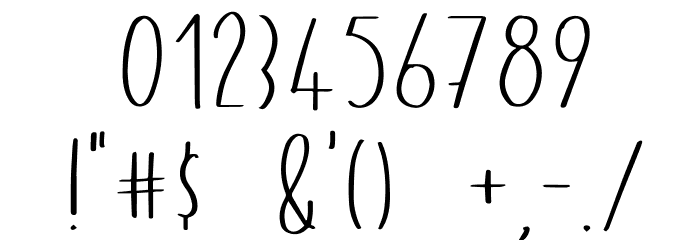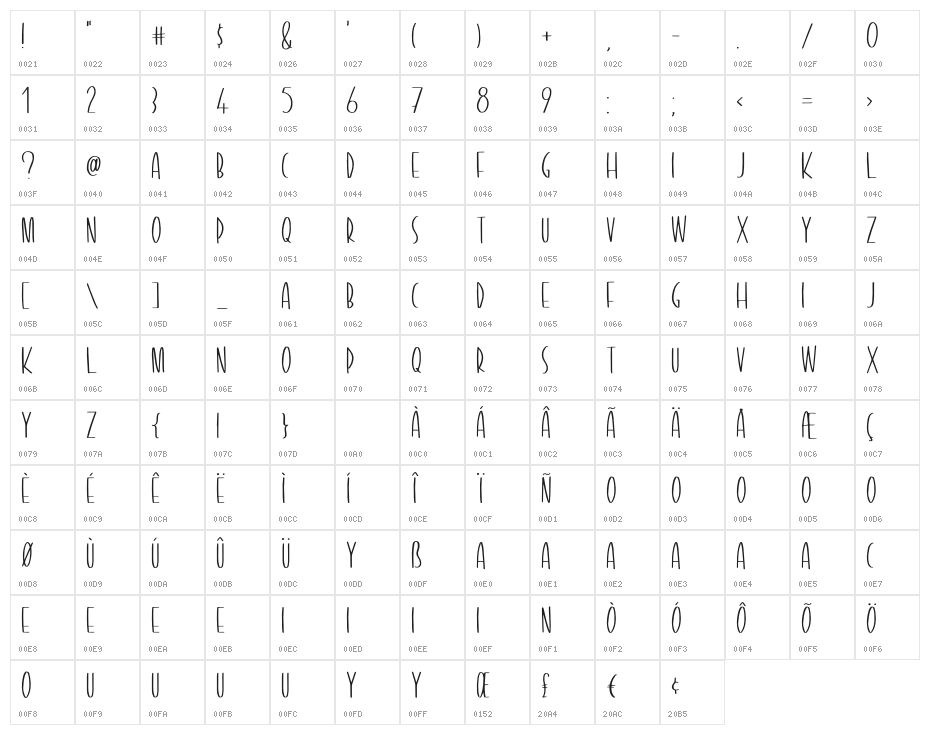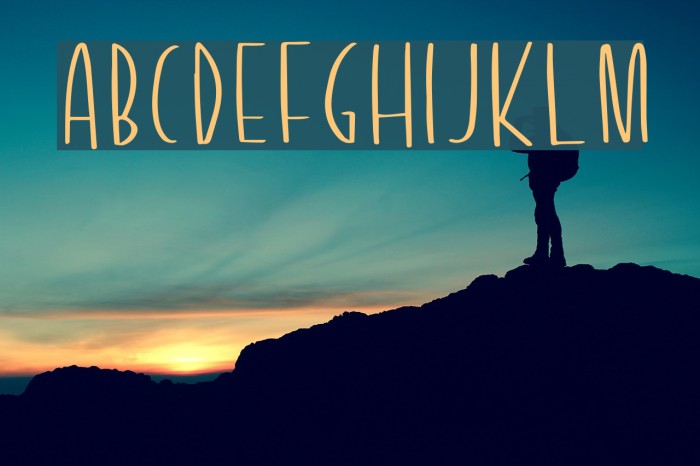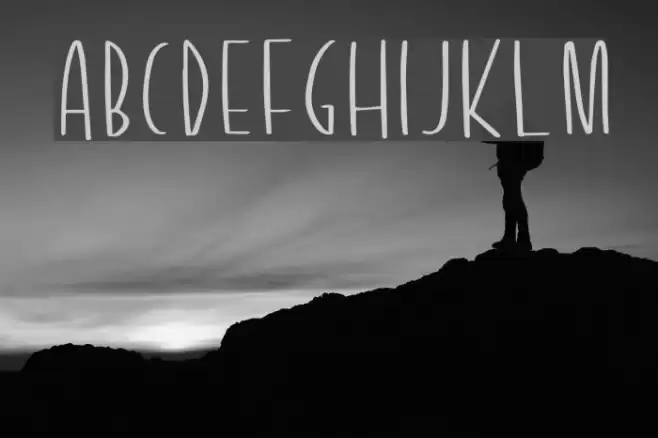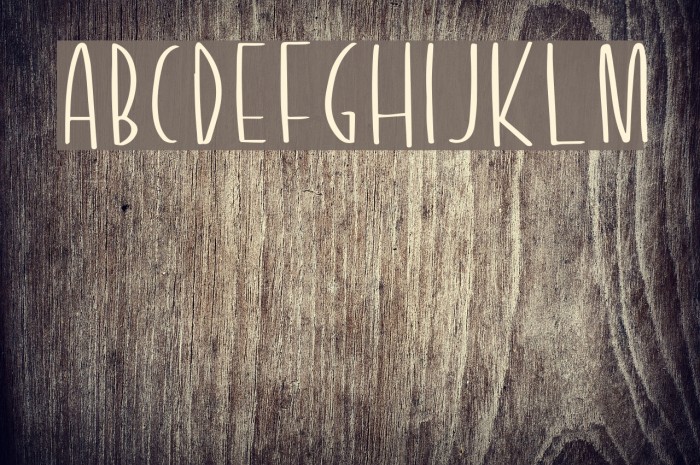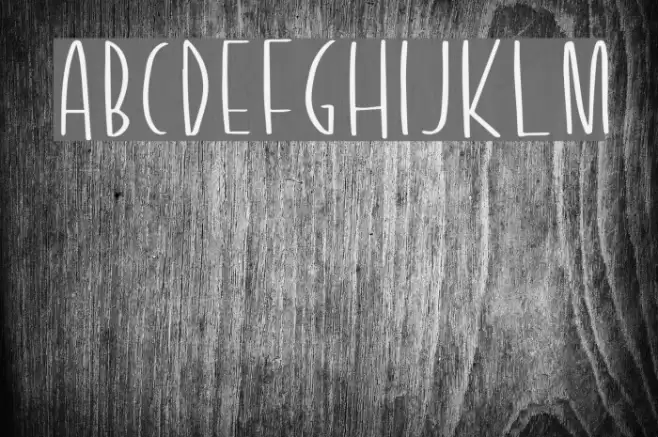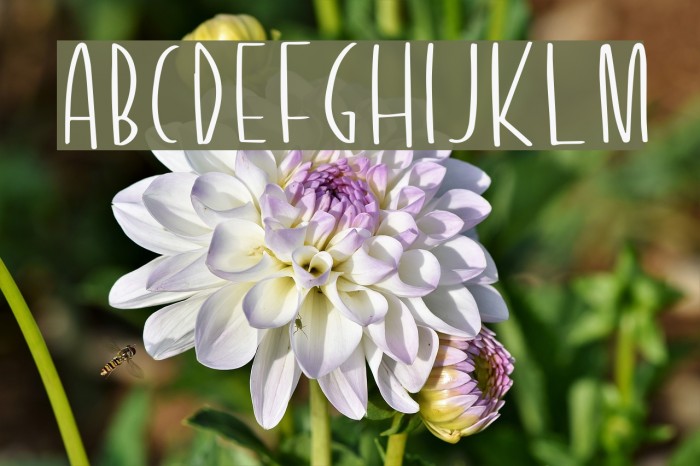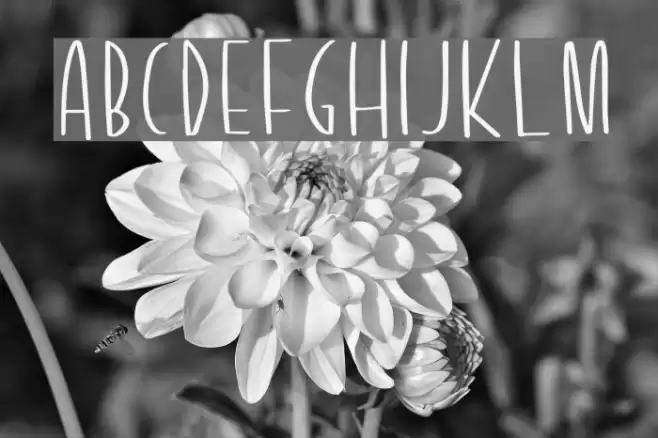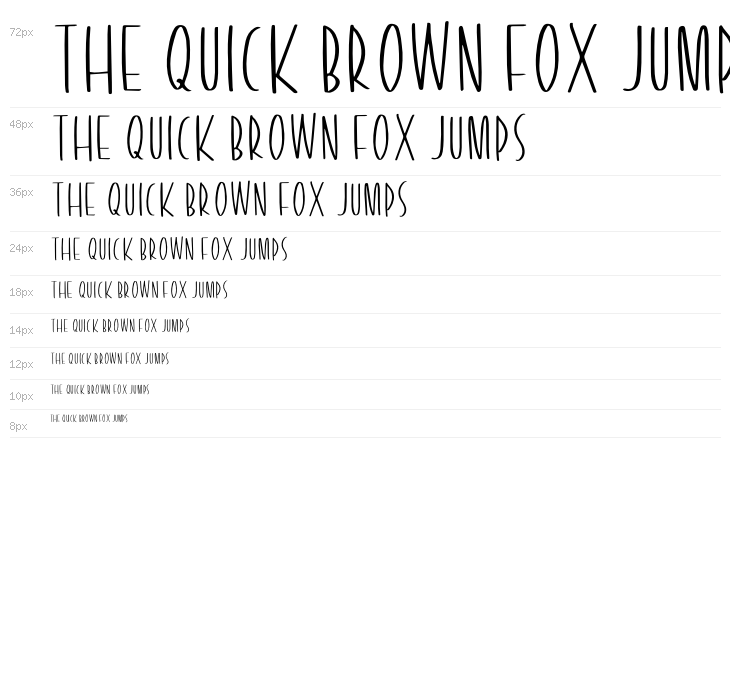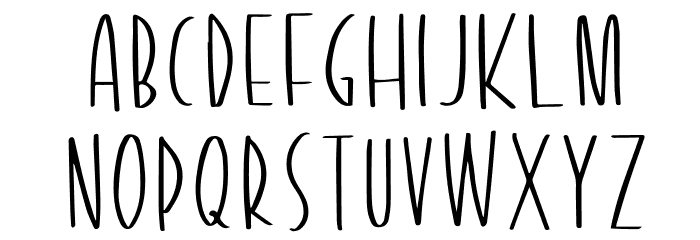
Tiny Trees Font
Tiny Trees Description
This font features a playful and whimsical handwritten style, characterized by tall, narrow letters with a slightly irregular baseline. The strokes are smooth and consistent, giving it a casual yet refined appearance. The uppercase and lowercase letters maintain a cohesive look, with the uppercase being slightly taller and more elongated. Numbers and special characters follow the same playful design, making them easily readable while maintaining the font's unique charm. The overall aesthetic is light-hearted, making it suitable for projects that require a touch of personality and creativity.
| Proposed Projects | Ideal for children's books, greeting cards, playful branding, and creative invitations. |